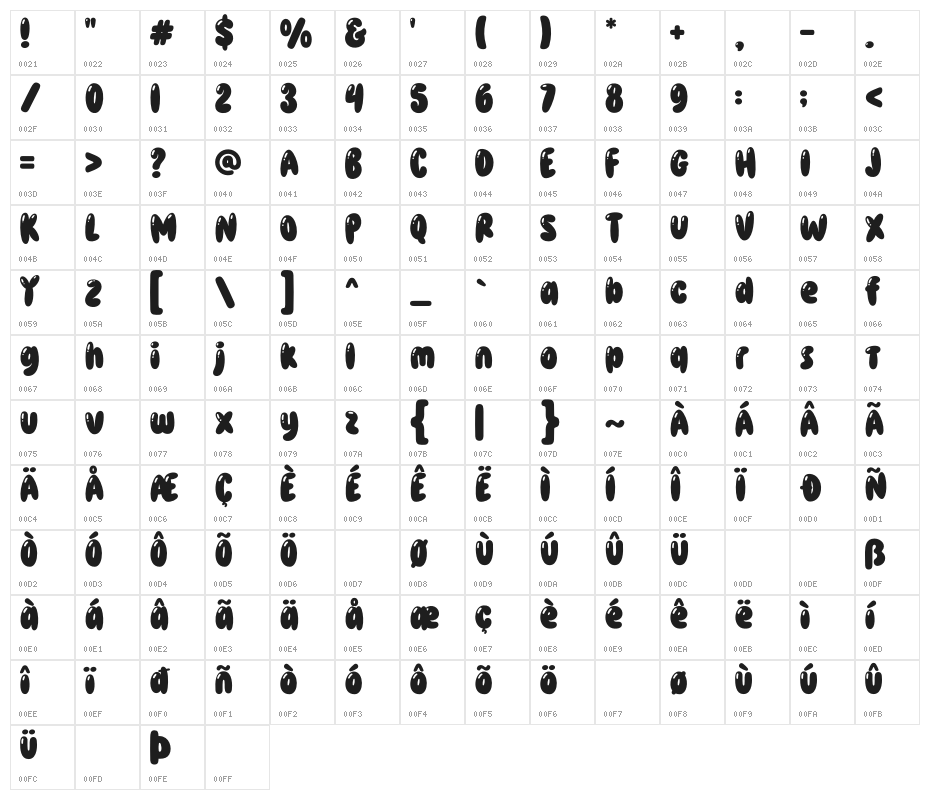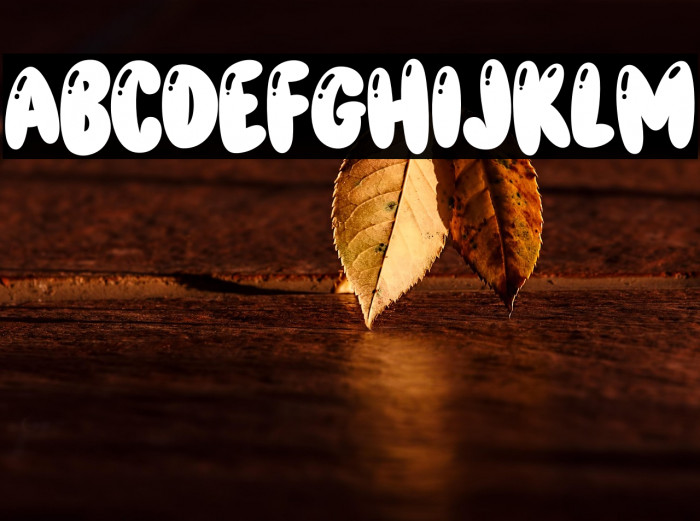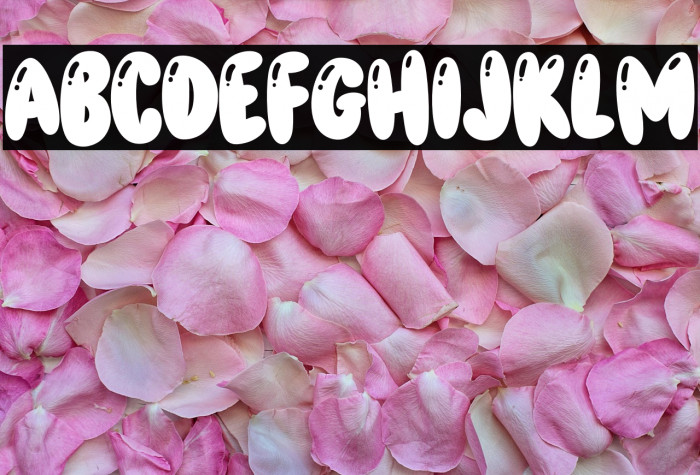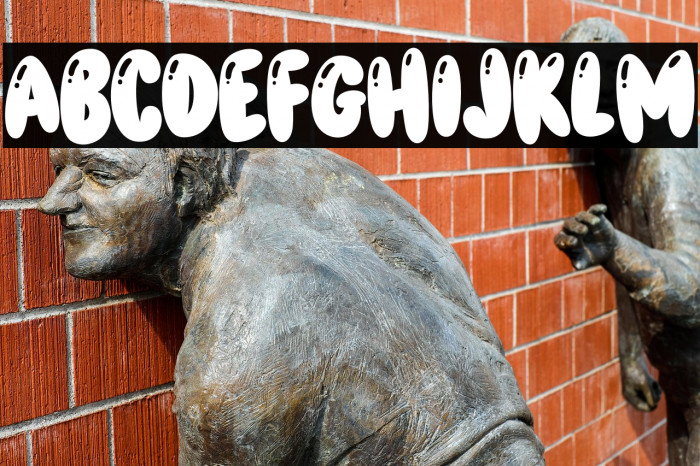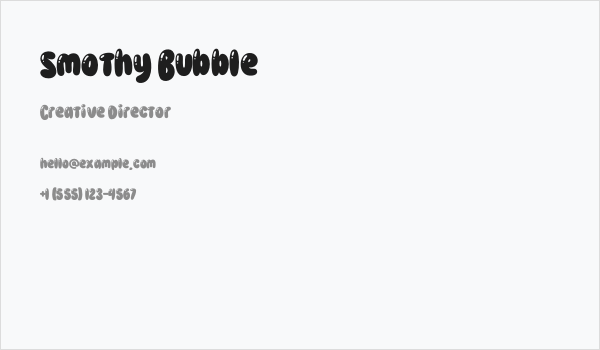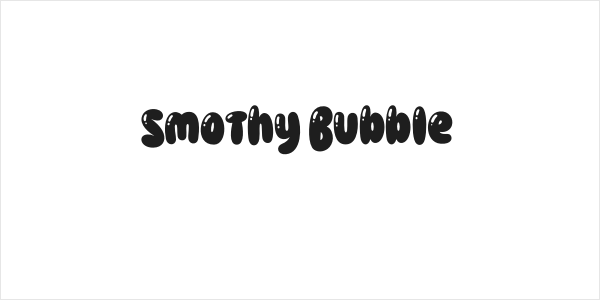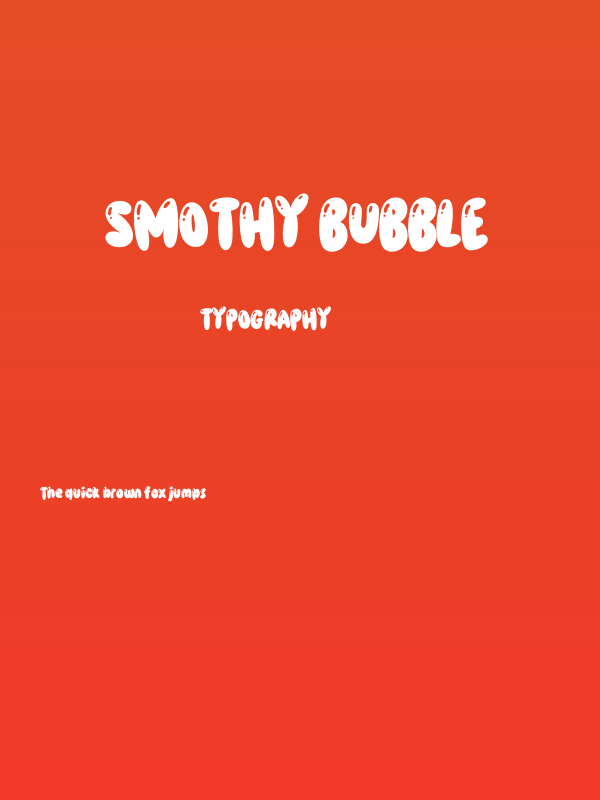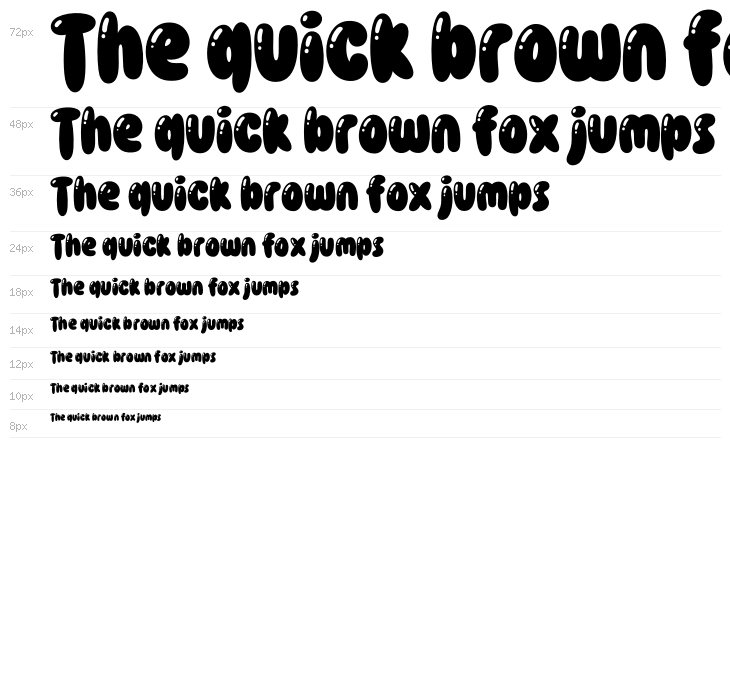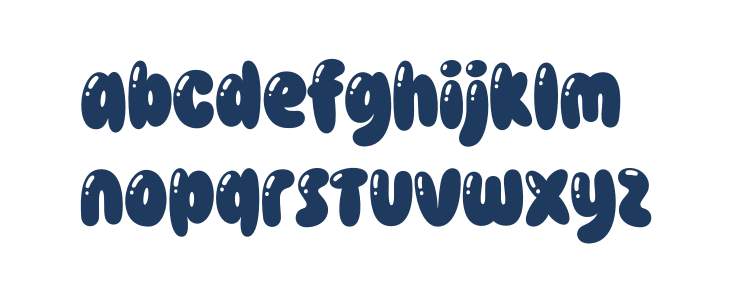
Smothy Bubble Font
Smothy Bubble Description
This playful and bold font features a bubbly, rounded design that exudes a sense of fun and whimsy. The characters are thick and substantial, with a smooth, flowing appearance that resembles inflated balloons or bubbles. Each letter is distinct, with a consistent stroke width that gives the font a cohesive look. The uppercase and lowercase letters maintain a uniform style, while the numbers and special characters integrate seamlessly, enhancing the font's versatility. Its unique style makes it ideal for projects that require a touch of creativity and lightheartedness.
| Proposed Projects | Ideal for children's books, party invitations, playful branding, and creative posters. |